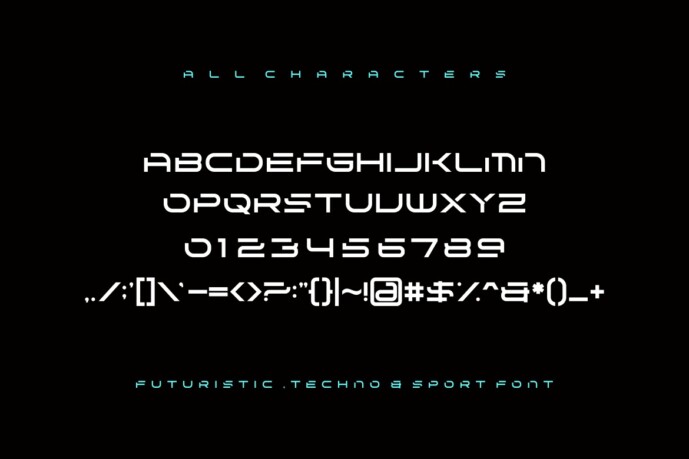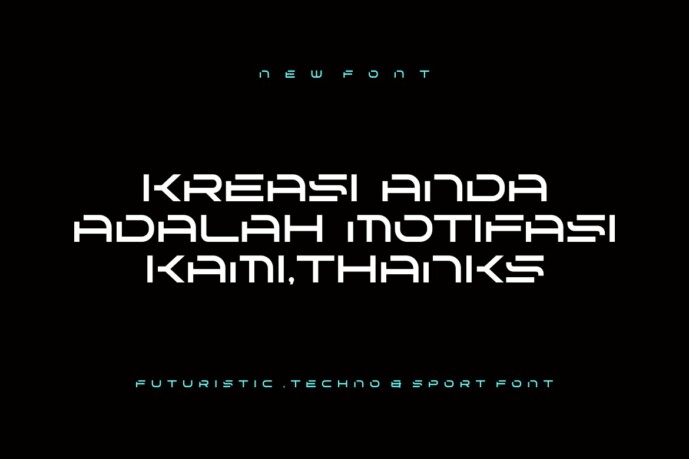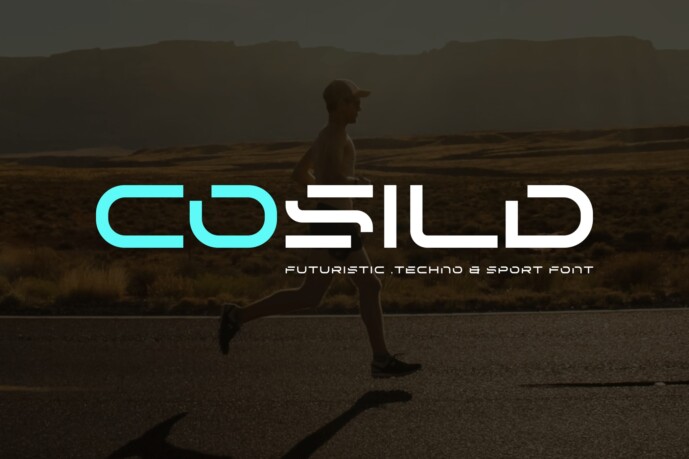
Cosild Font
Designer: ryomics
Cosild Font – Modern Font is a bold and authentic display font. The font is suitable for any branding project like Logo, t-shirt printing, esports and many more. Excellent in a wide range of contexts